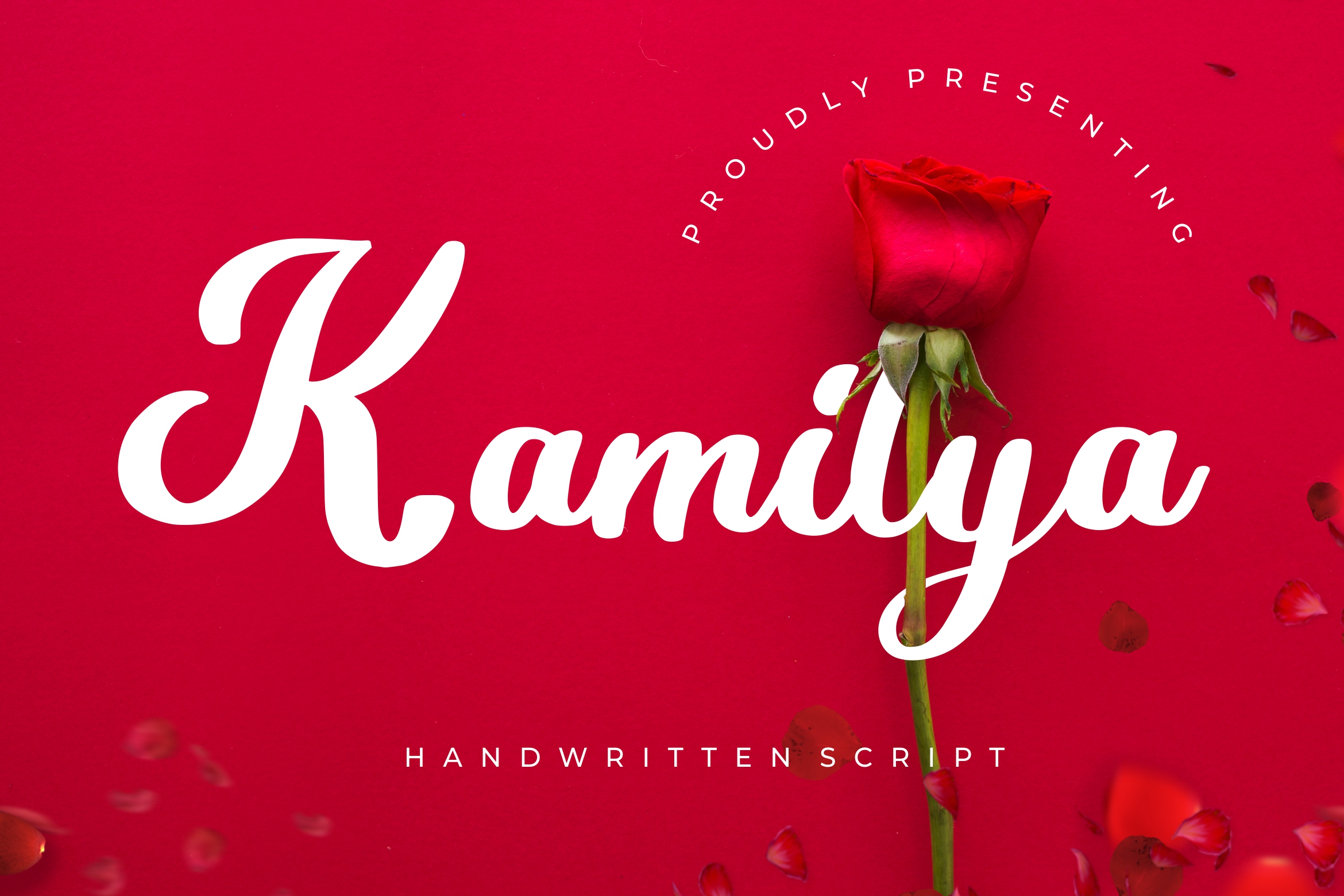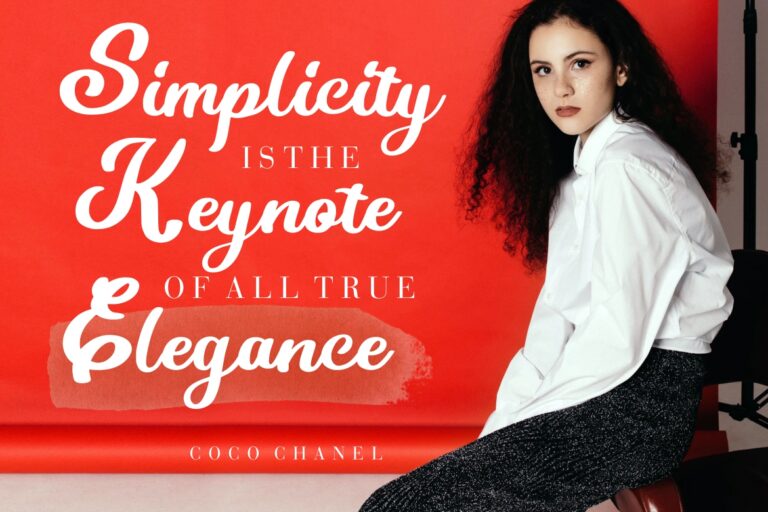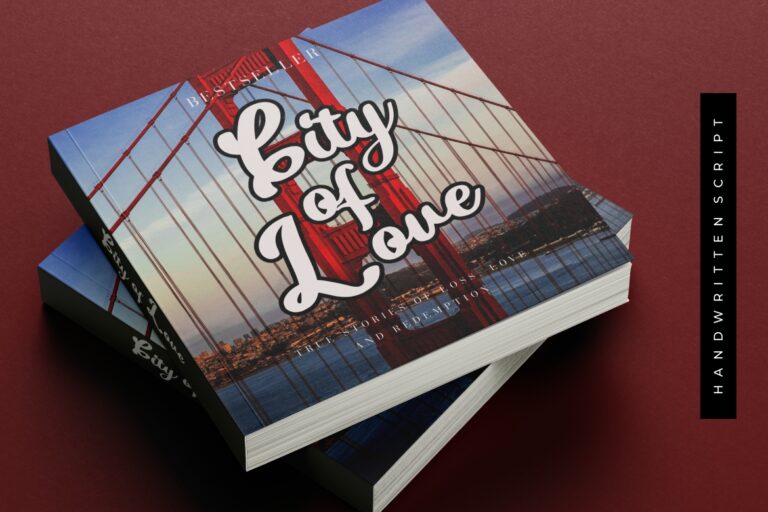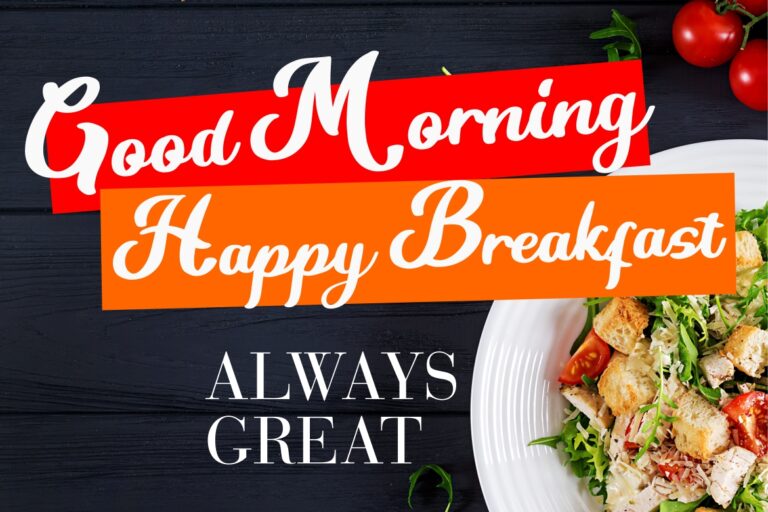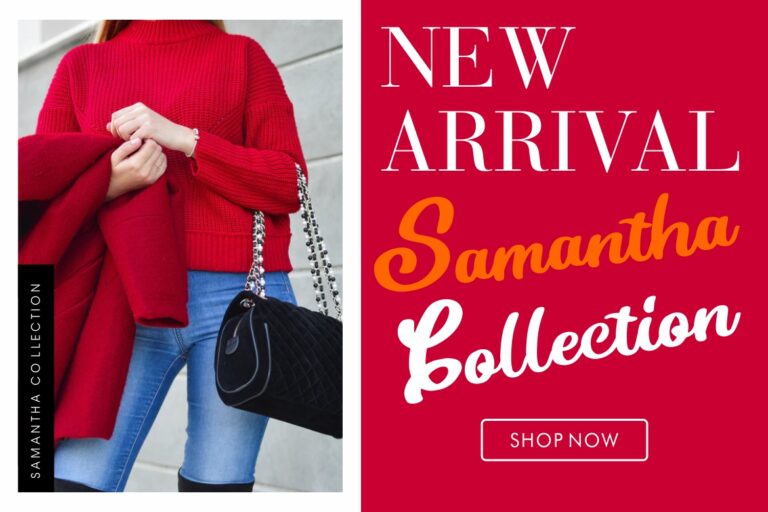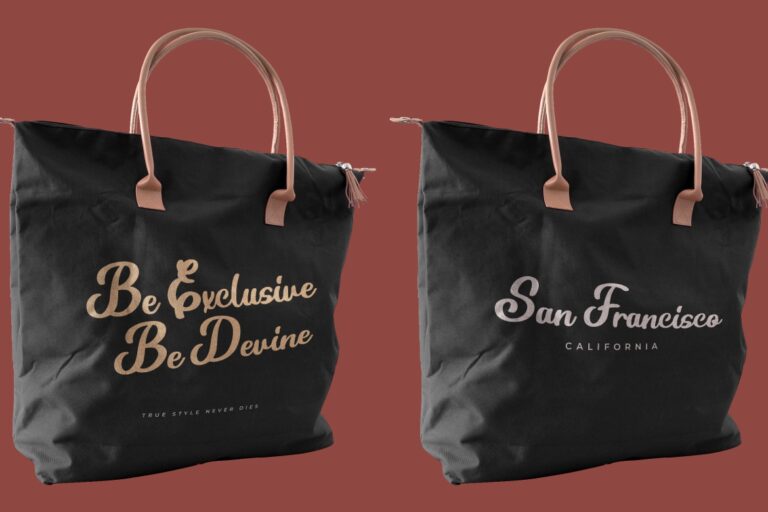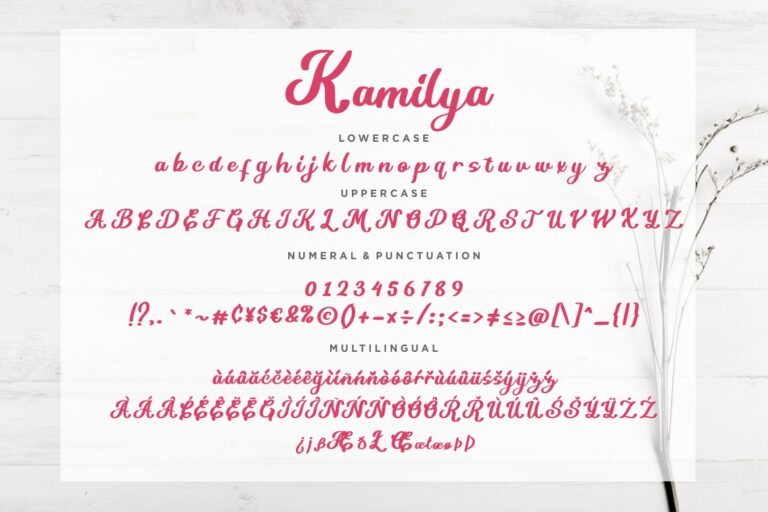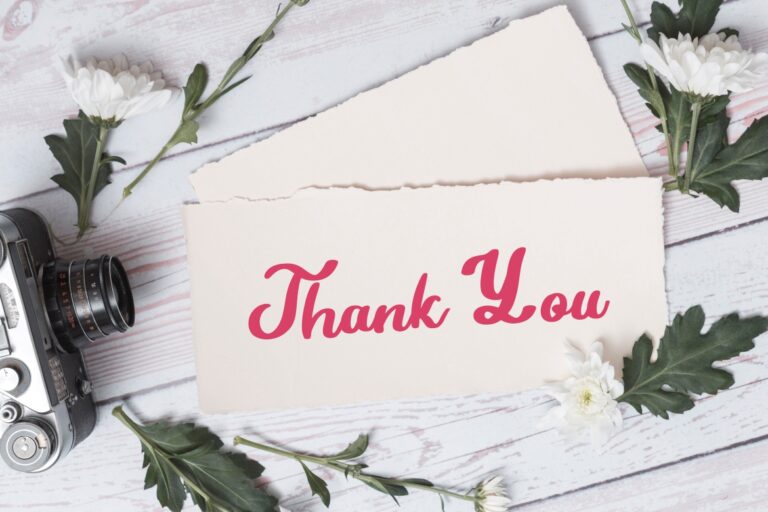
Kamilya is a modern & fresh script with a stylish handwritten and script style make this font looks natural, classy, natural and perfect for any awesome projects that need handwriting taste.
Kamilya is perfect for branding projects, logo, wedding designs, social media posts, advertisements, product packaging, product designs, label, photography, watermark, invitation, stationery and any projects that need handwriting taste.
Kamilya Handwritten Script